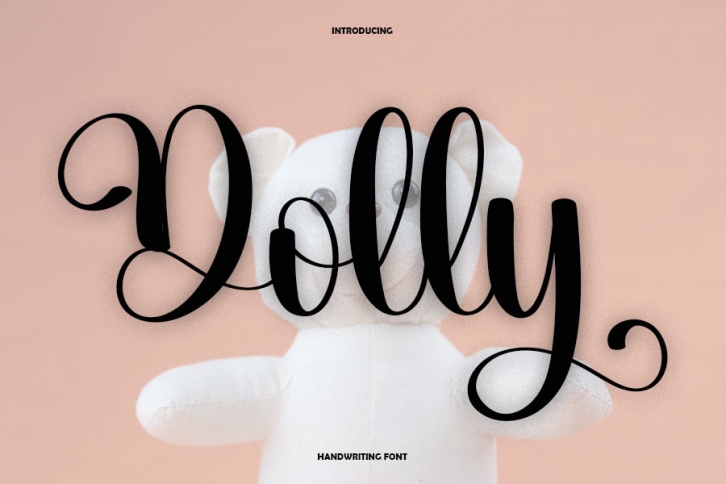
Dolly is a simple and friendly handwritten font. Whether you’re using it for crafts, digital design, presentations, or making greeting cards, this font has the potential to become your favorite go-to font, no matter the occasion